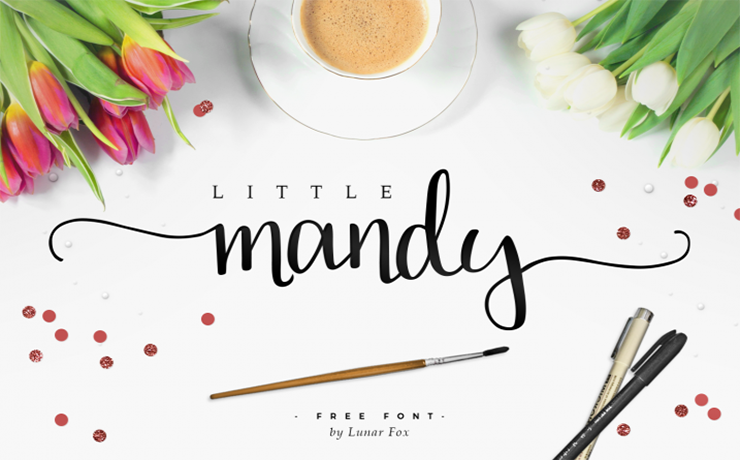
Little Mandy Free Font is a super pretty and stylish script typeface that adds a feminine touch to any project with this slanted script typeface that’s great for posters, logos, cards, and more.
This lovely calligraphy typeface has Rubens, noelan, and lunar fox typefaces. That was created by Junik Studio.
The designer has made the texture of this beautiful font very light to make it unique. And you will notice two types of strokes, including light and bold.
Due to its high readability and easy identification, this beautiful font will definitely work well for any type of design. Where it has to do with printing or display.
It is perfectly suited for stylish cards, movie posters, shopping bags, game graphics, card printing, fashion magazines, fancy products, cosmetics, and many other great places.
Little Mandy Font contains 200 numeric characters, beautiful alphabet sketches, and great strokes that are very popular with designers.